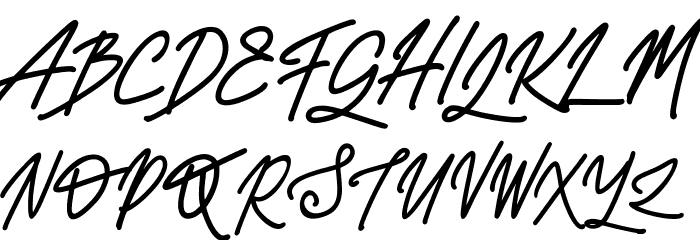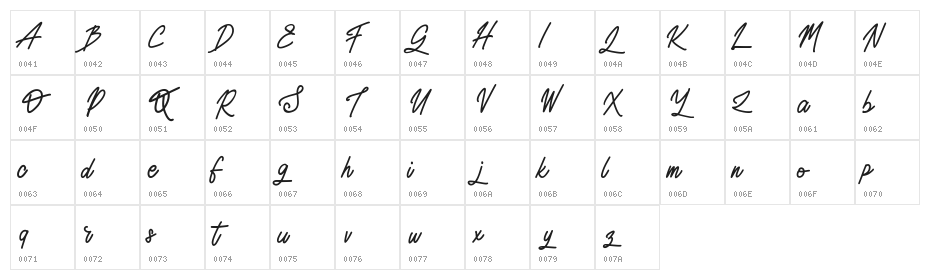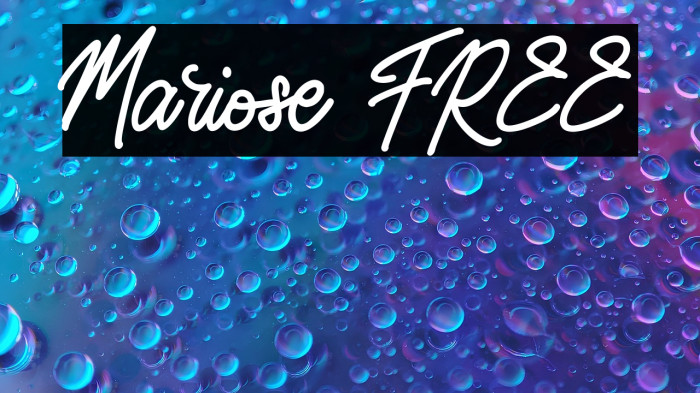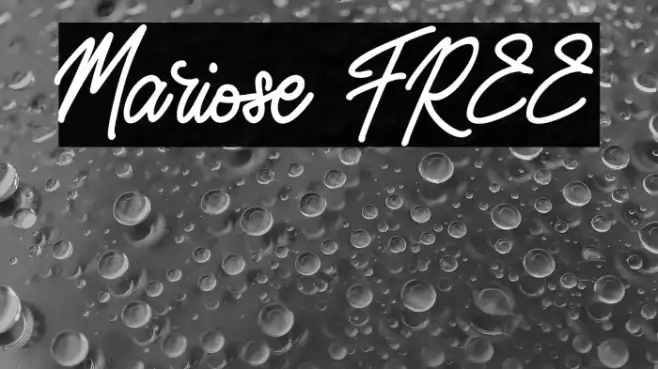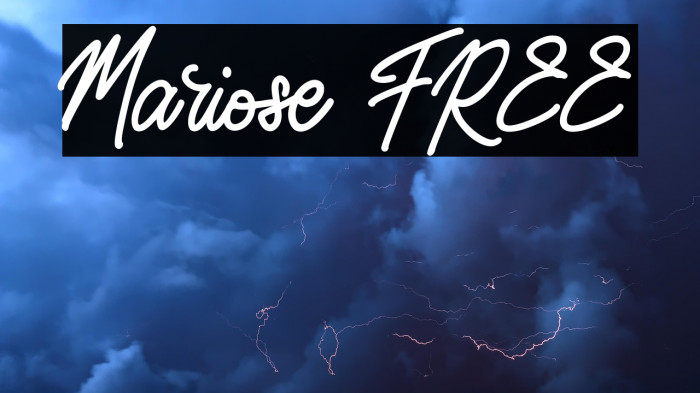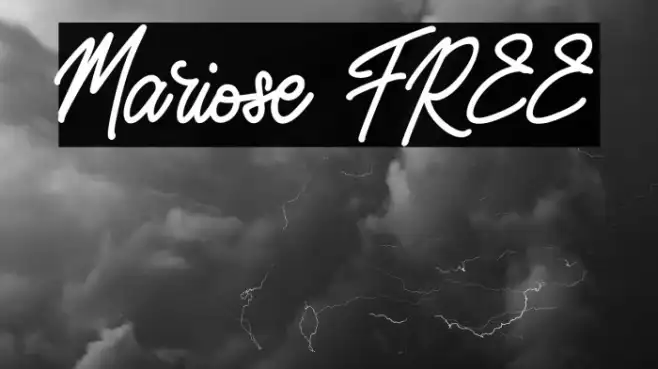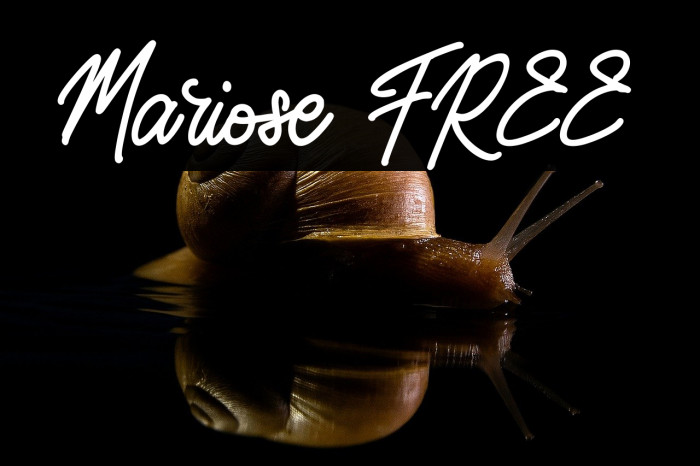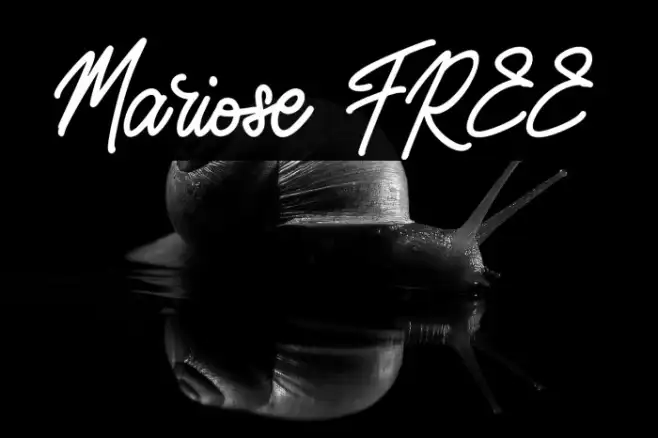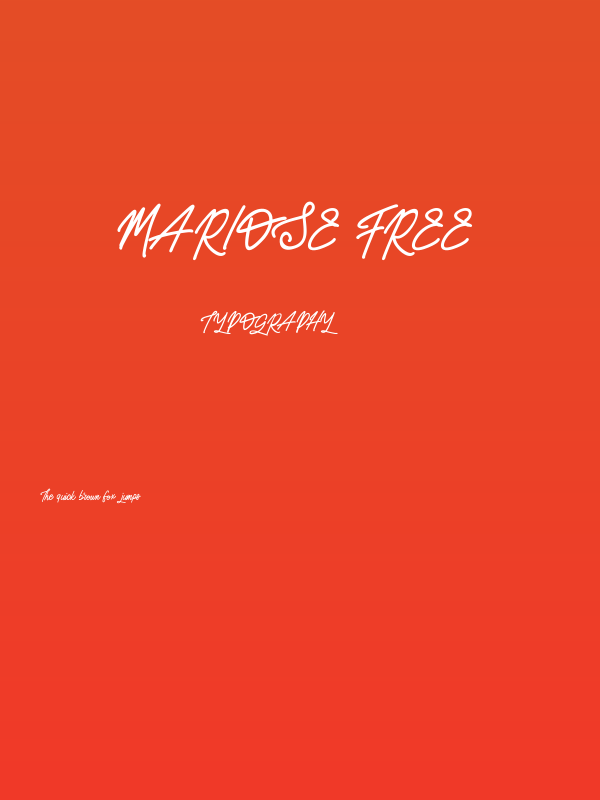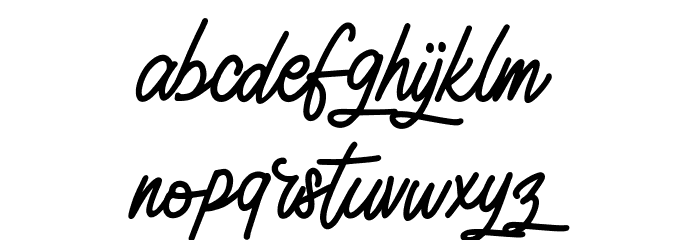
Mariose FREE Font
Mariose FREE Description
This font features a dynamic and flowing script style, characterized by its elegant and fluid cursive strokes. The letters are interconnected, creating a seamless and continuous flow that mimics natural handwriting. The uppercase letters are bold and prominent, while the lowercase letters maintain a consistent style with slightly more subtle curves. The font exudes a sense of sophistication and personal touch, making it ideal for projects that require a handwritten or signature-like appearance. Its playful yet refined design is suitable for a variety of creative applications.